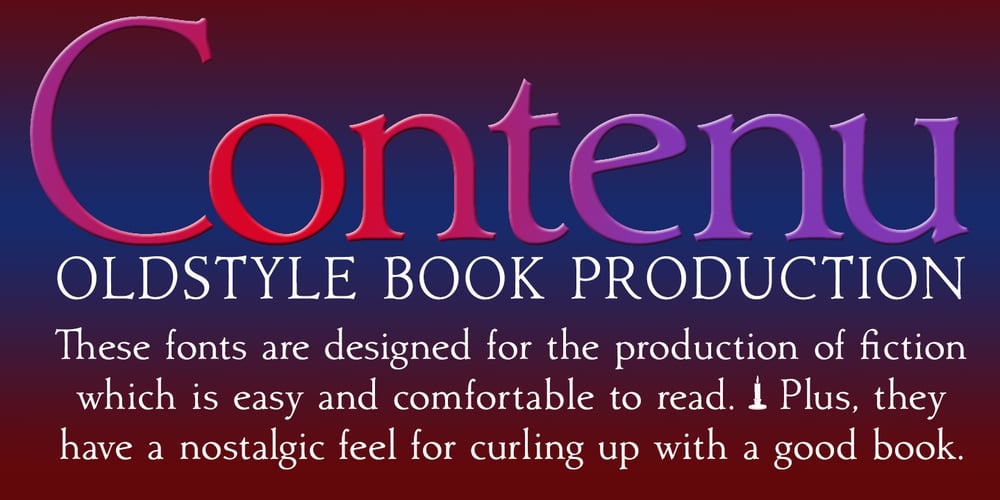
Contenu
Contenu font
Contenu Font Family was designed by David Bergsland and published by Hackberry Font Foundry. Contenu contains 9 styles and family package options. Because Contenu is designed for text use, it is spaced for body copy in the 9-12 point range. That is far too much spacing for heads, subheads, and the like. So I made the display version of Contenu Book to use for headers. In the process of tightening the spacing at the very large sizes, I also made some minor modifications to the glyph shapes to make this version a little more elegant. Contenu Opentype has two Opentype families for print design. Contenu Book has five fonts: Regular, Italic, Bold, Bold Italic, and Display. Contenu has Medium, Medium Italic, Black, and Black Italic. The name is French for content and this is what the family is designed for: text, body copy, and book layout. If it has a style, it is a modern take on oldstyle serif font using Jenson as a mask. There are no plans for display versions of the bolder weights or the italics. If you want them, use Contenu Medium, Book Bold, Contenu Black, or any of the four italics and tighten the tracking.